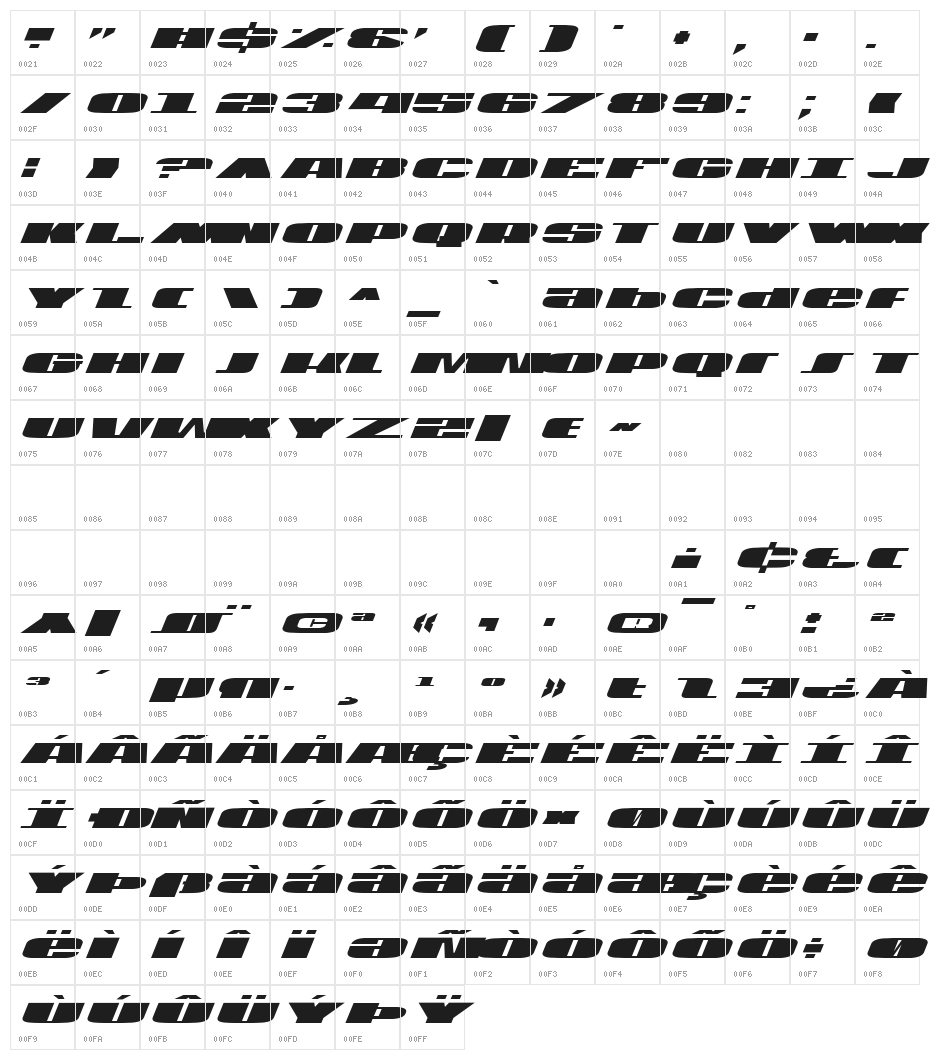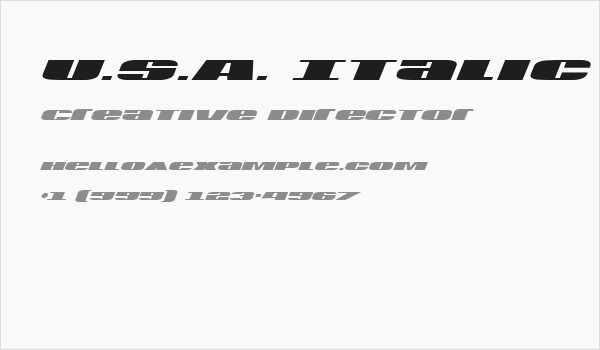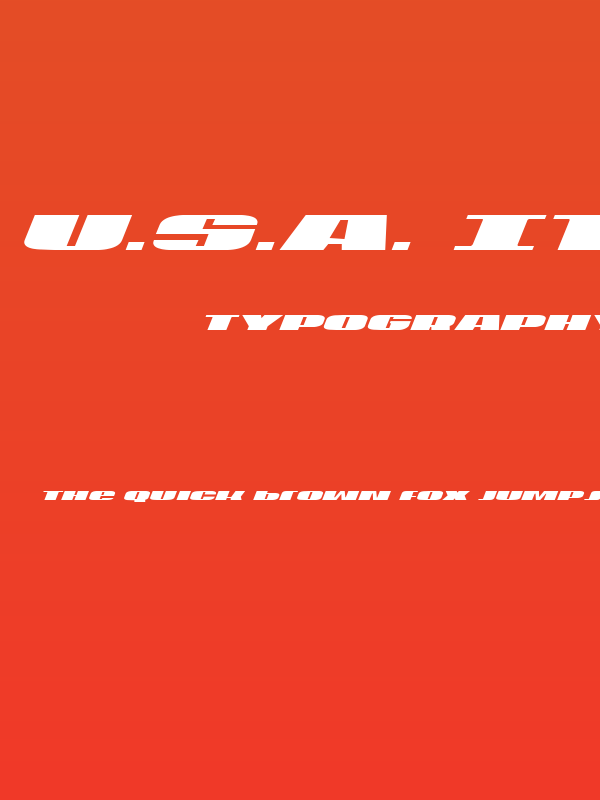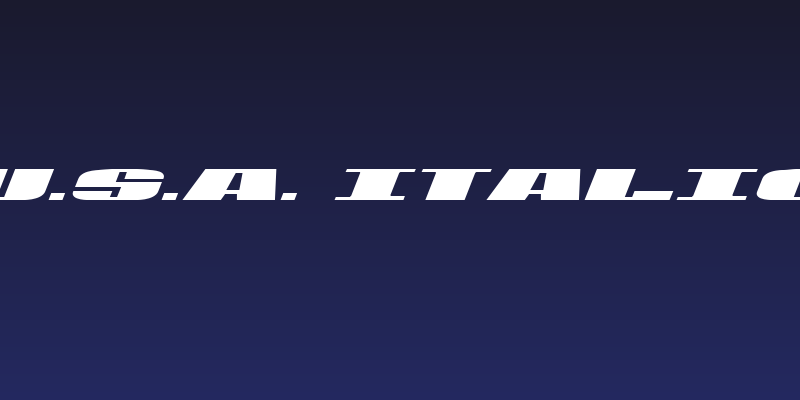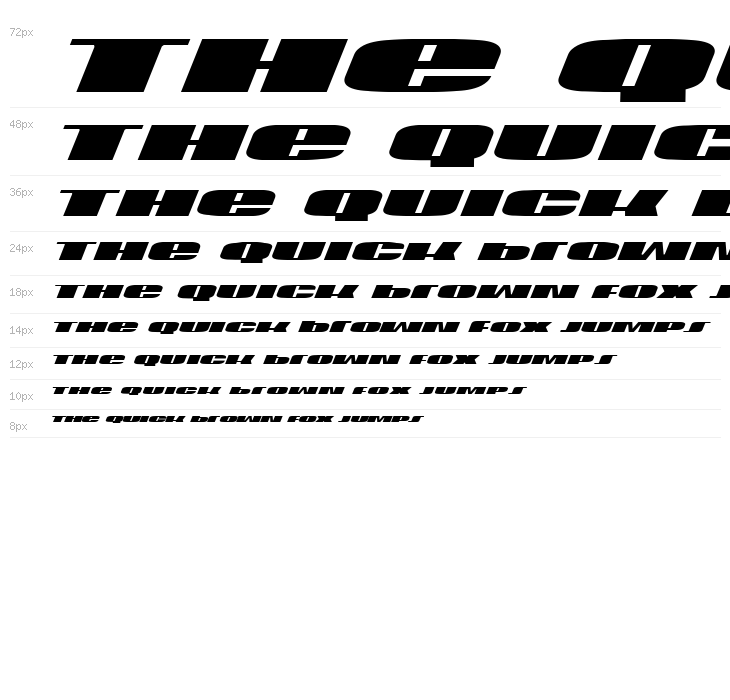
U.S.A. Italic Font
U.S.A. Italic Description
This font features a bold and dynamic style with a strong italic slant, giving it a sense of motion and energy. The characters are wide and robust, with thick strokes that convey a sense of power and confidence. The uppercase and lowercase letters maintain a consistent style, with sharp edges and angular forms that enhance its modern and aggressive appearance. The numerals and special characters are equally bold, ensuring uniformity across all text elements. This font is ideal for making a strong visual impact.
| Proposed Projects | Ideal for sports branding, automotive advertisements, action movie posters, and dynamic logo designs. |